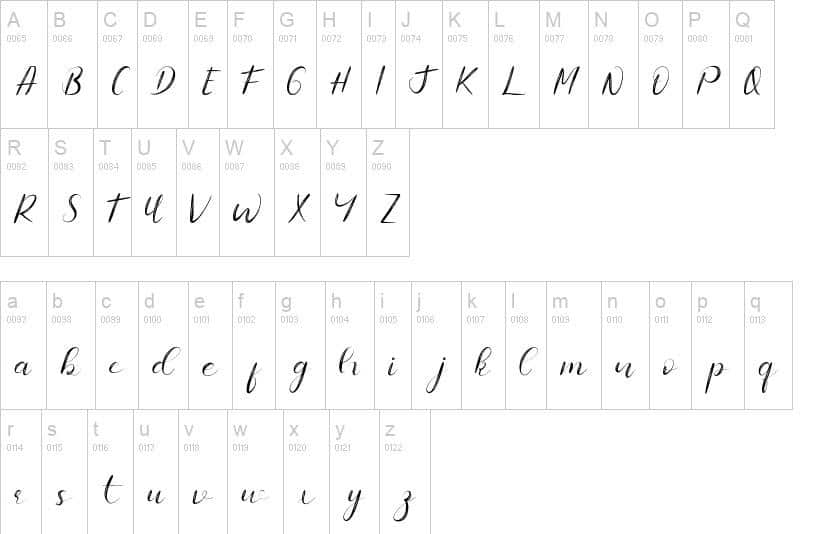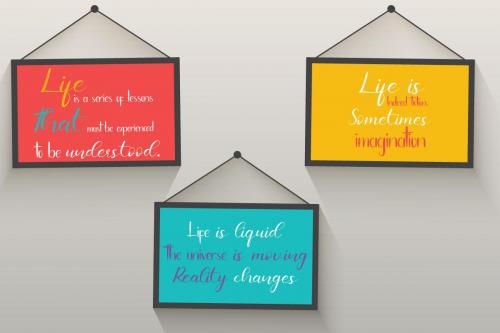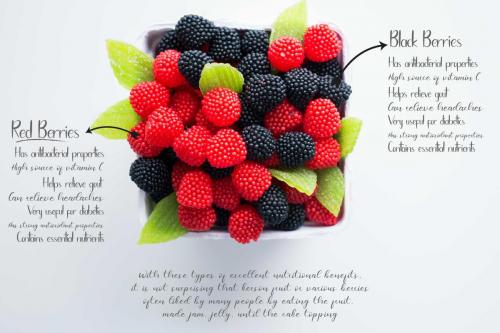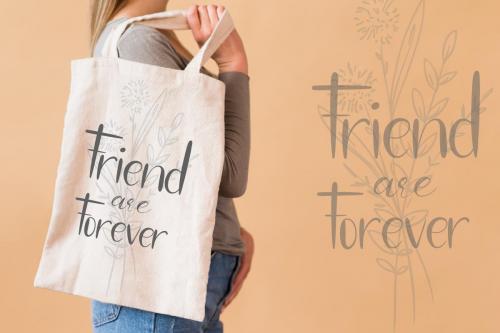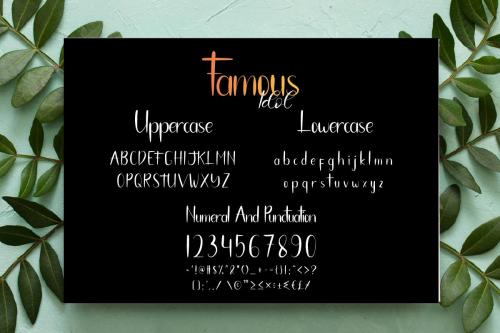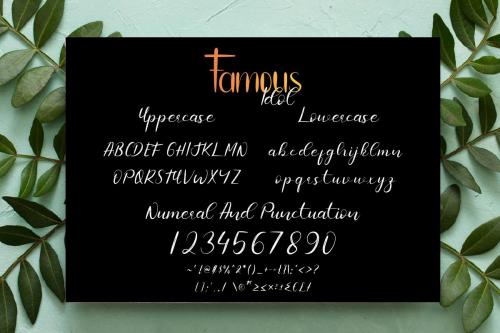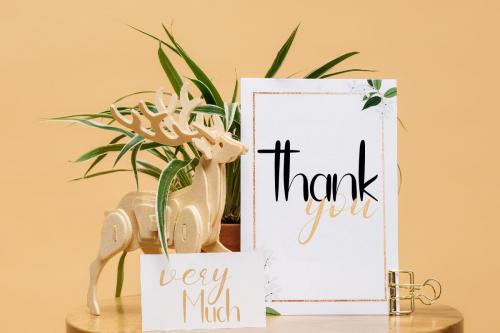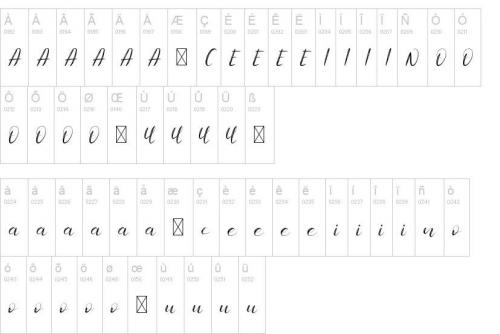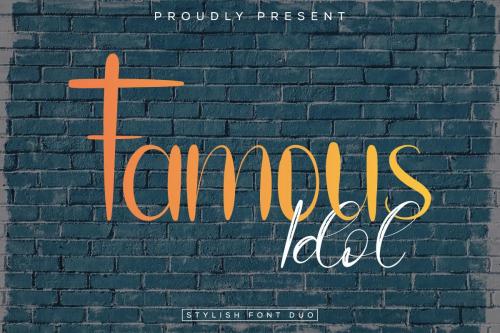
Famous Idol is a unique and interesting handwritten font. Incredibly versatile, this font will fit a wide pool of designs.
Fall in love with its incredibly stylish look and use it to create spectacular designs!
- Designer: Edric Studio